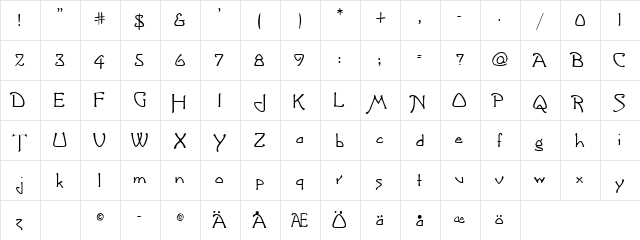
Greeting (Plain)
Design Context for Greeting Typeface
Greeting is a composed and adaptable typeface that performs quietly and consistently across a wide range of design contexts.